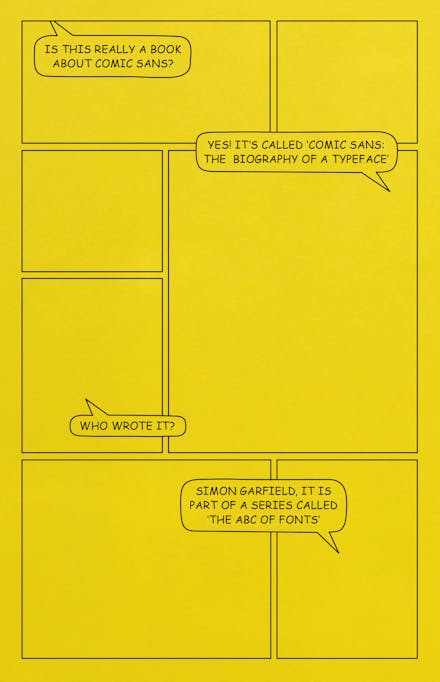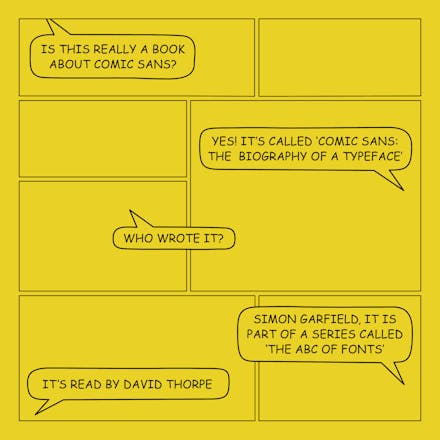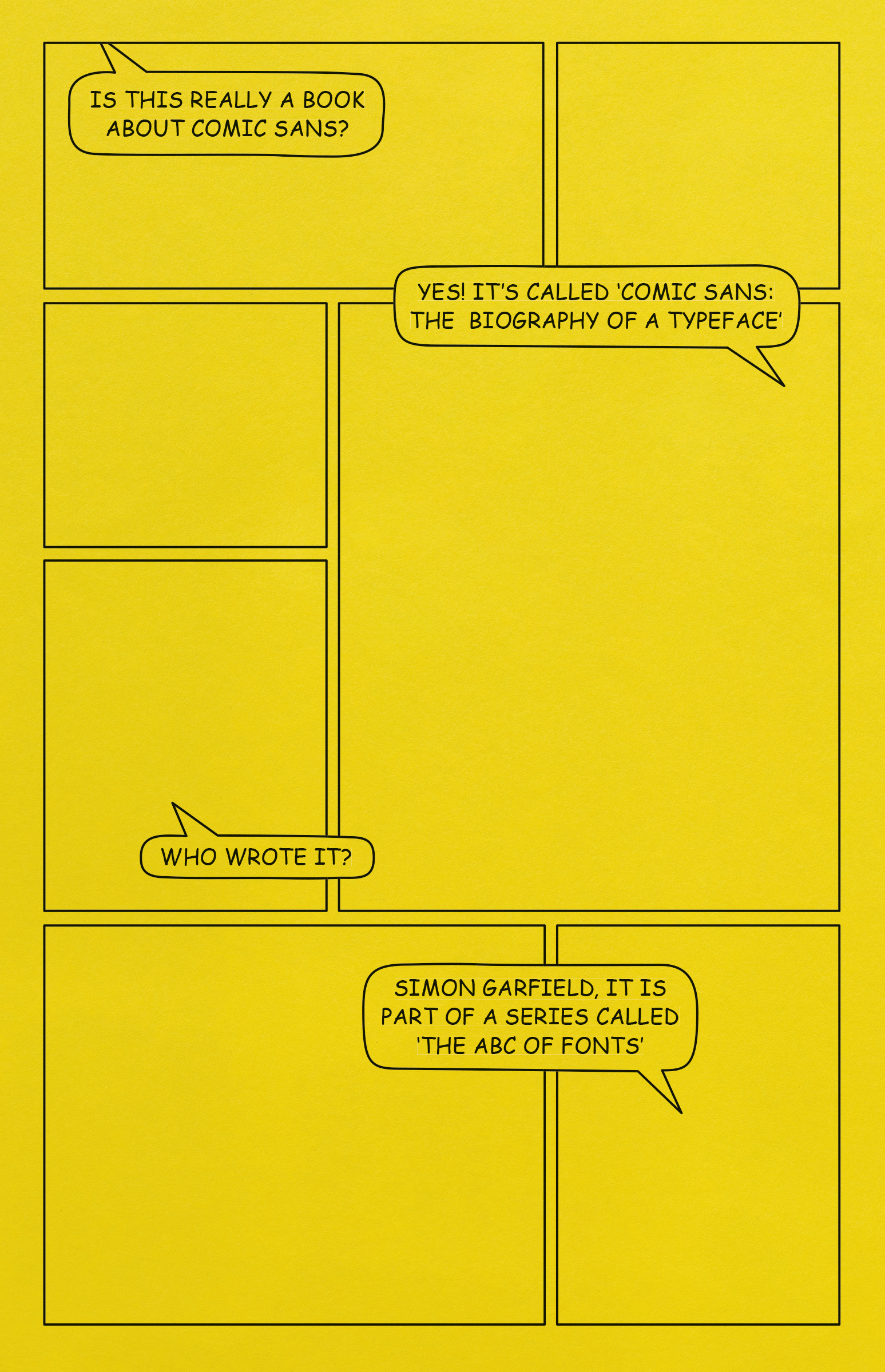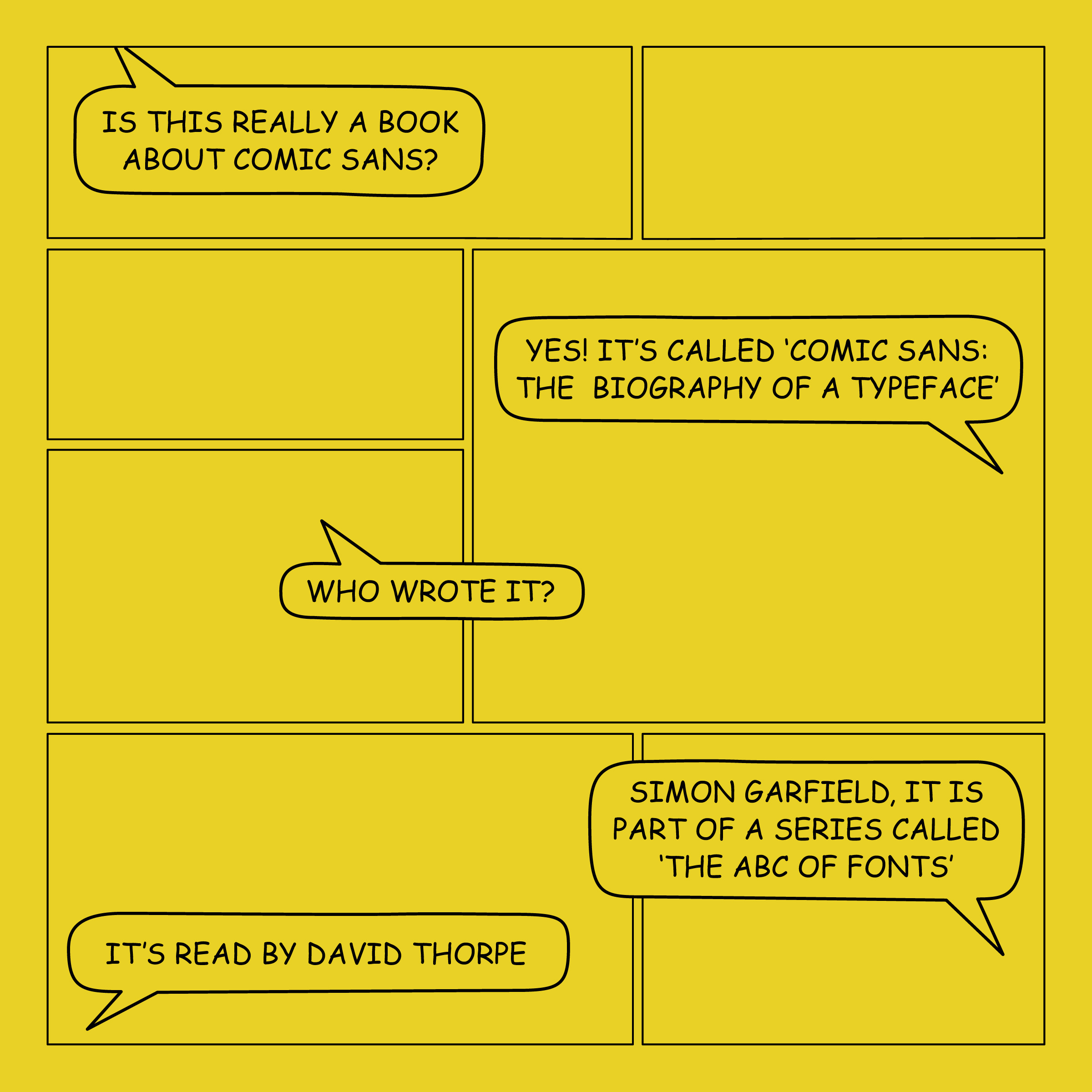
Comic Sans is one of the most used and most reviled typefaces of the digital age. How was it made? How could it spawn a movement to ban it and yet still be so widely promoted by educators? What does its accidental creator make of its contentious and singular history?
This quirky and unique book considers how the computer transformed type into something that anyone could use and have an opinion on. It examines how a typeface, correctly used, may sell us almost anything, and how new types with names such as Crash Soul, Lovely Scream Queens and Ampersandist (to name but three recent examples of the hundreds issued each year) each attempt to keep the alphabet exciting and new. And it concludes with an alluring question: could Comic Sans now be the coolest typeface ever made?